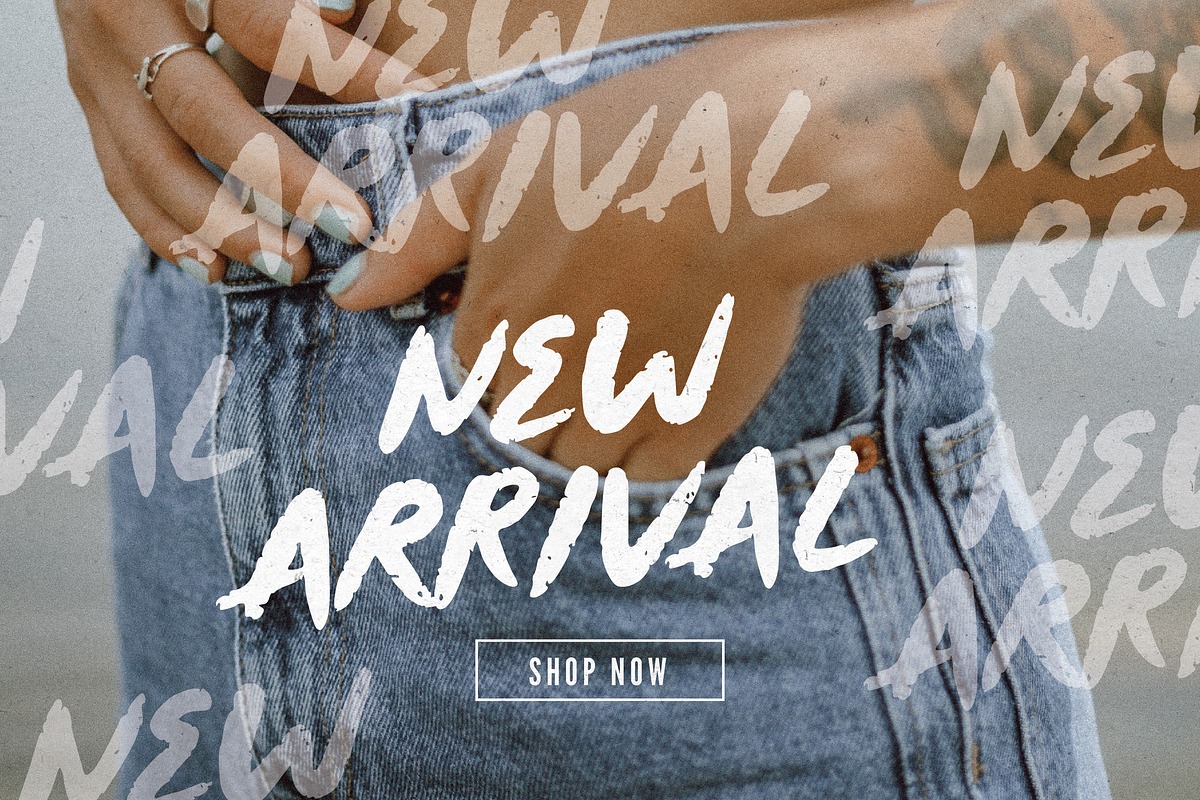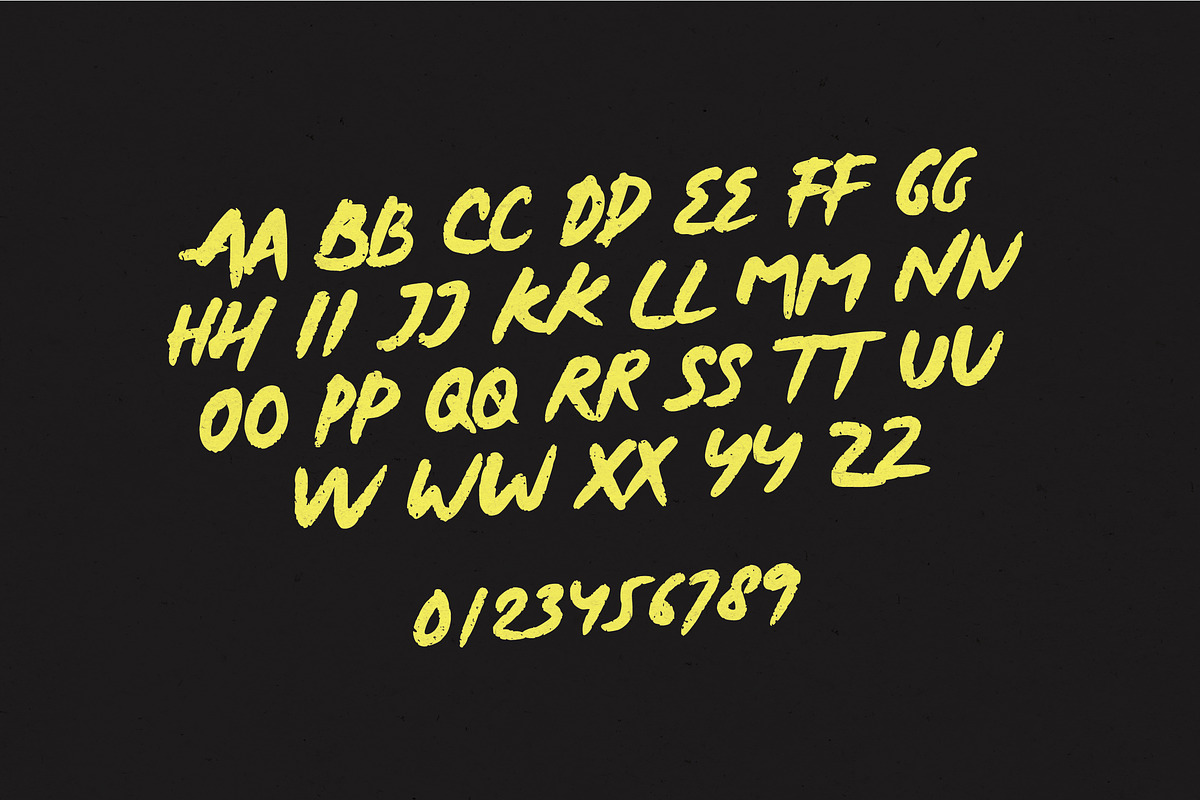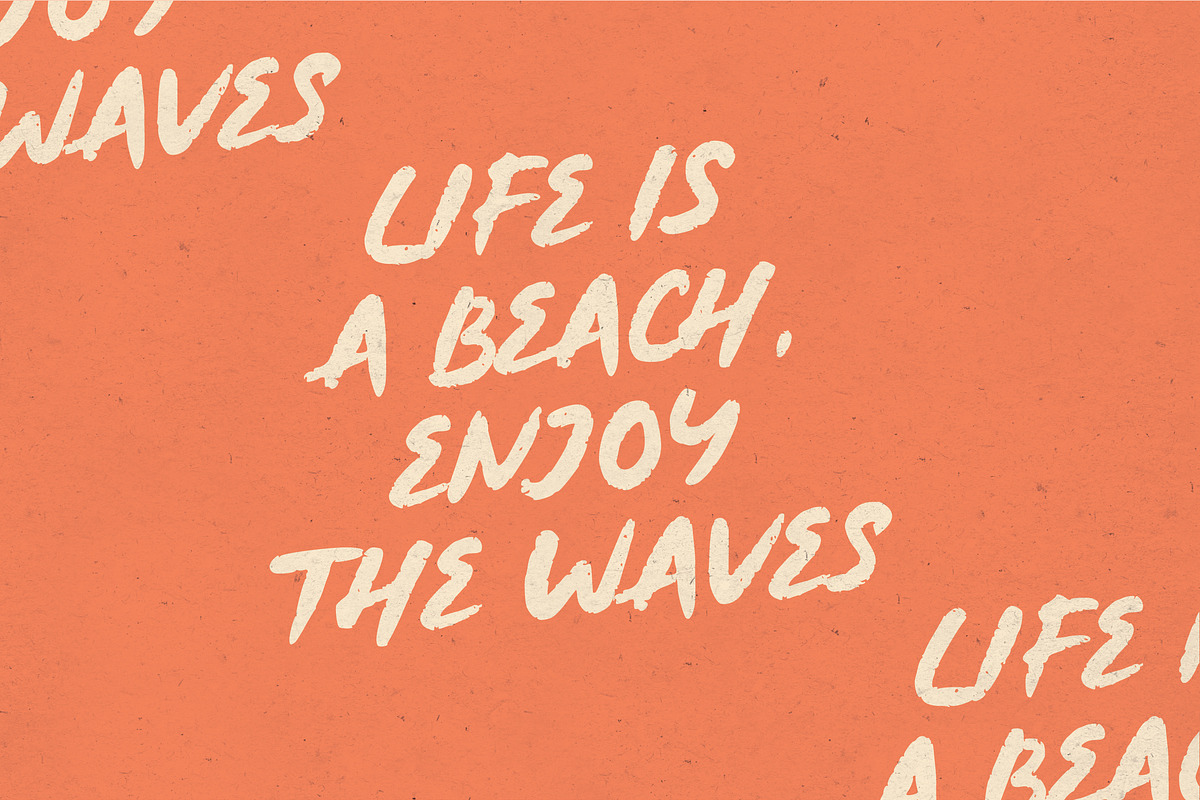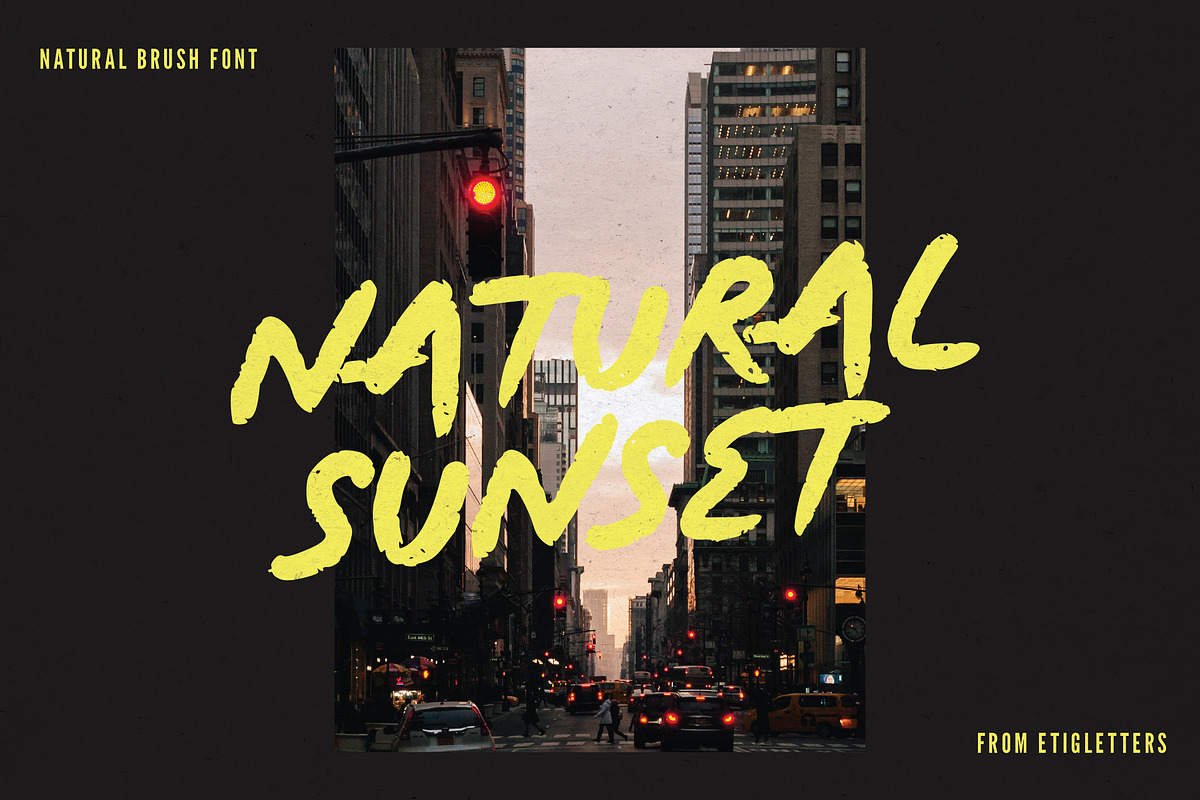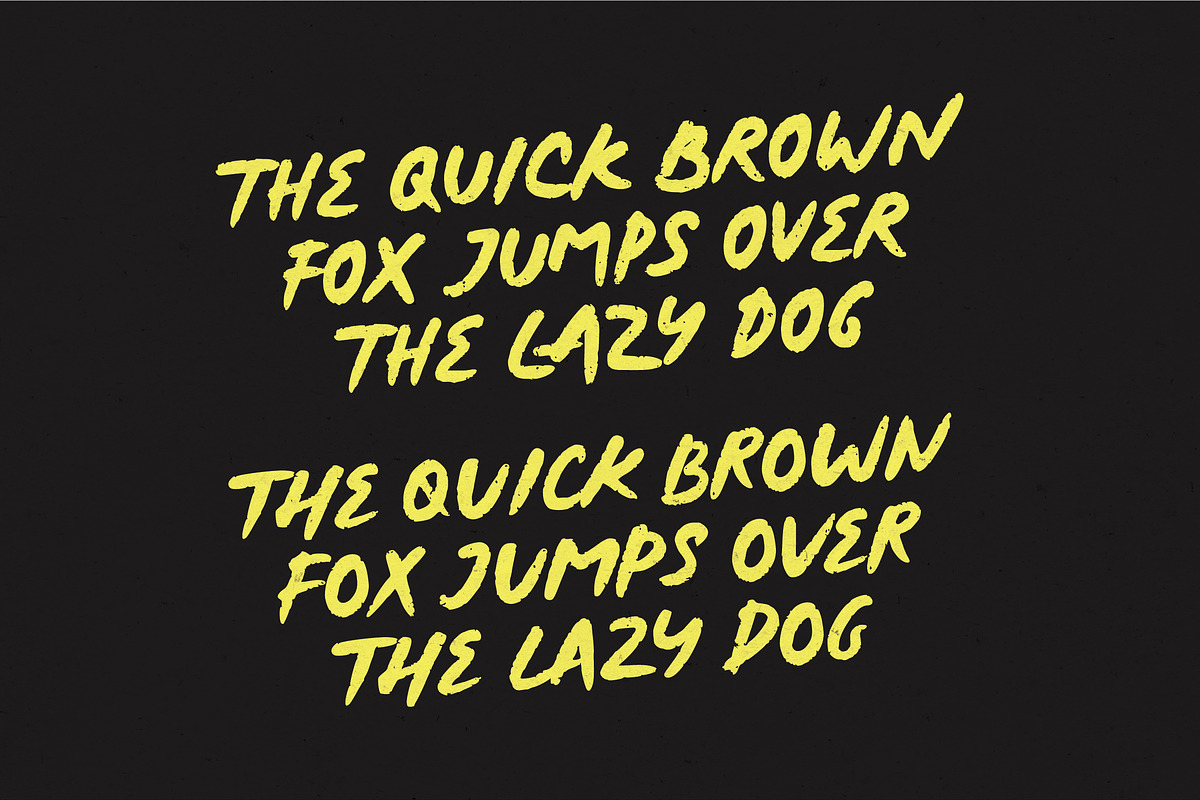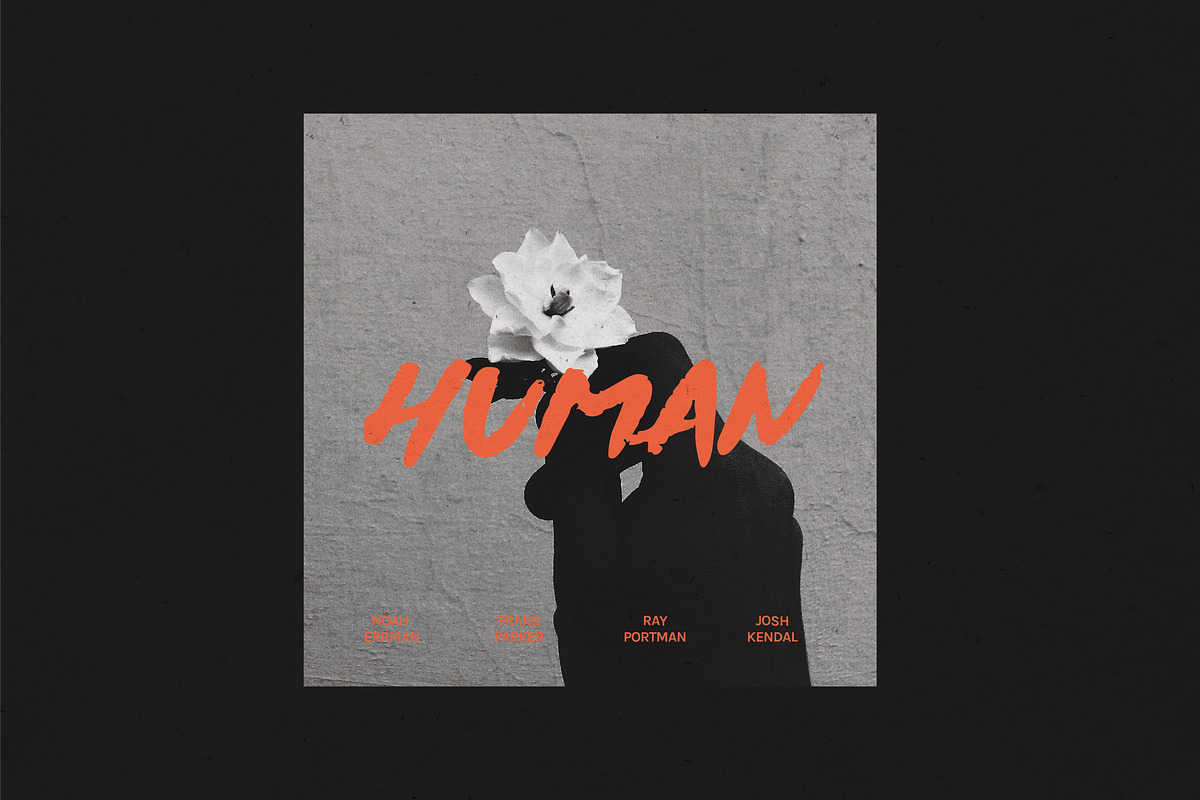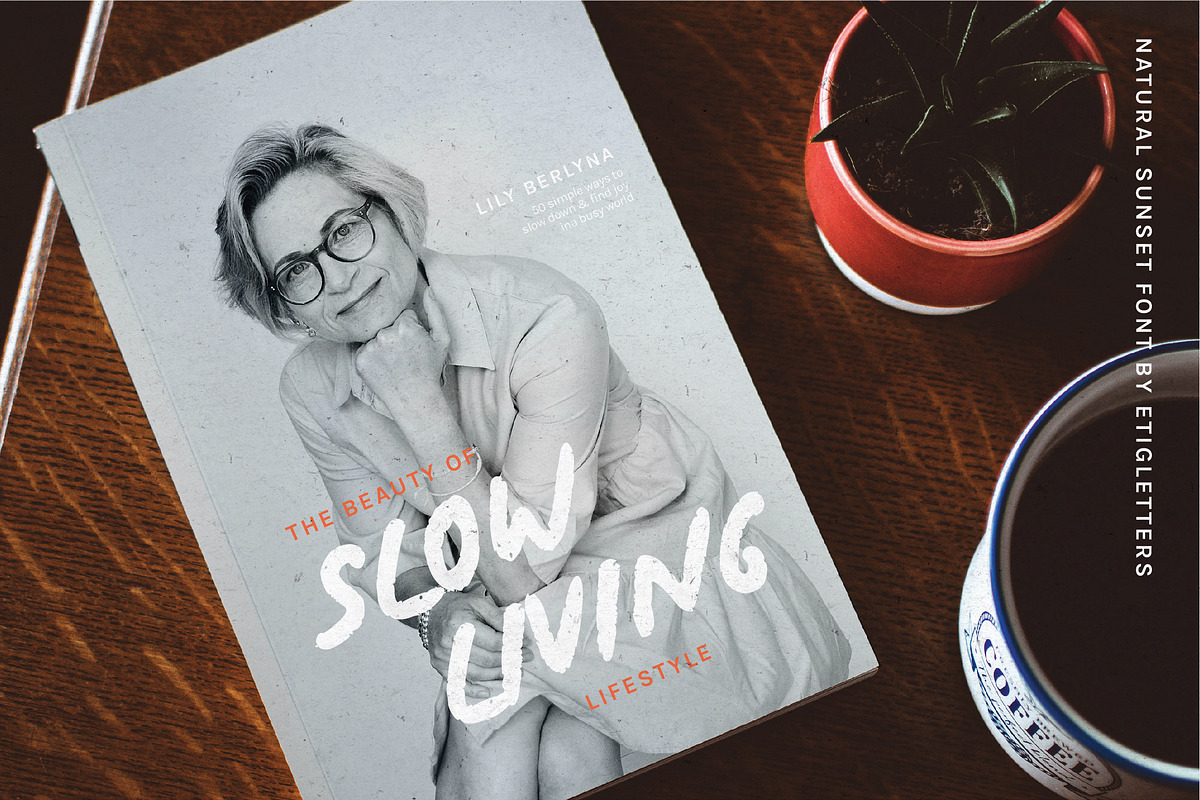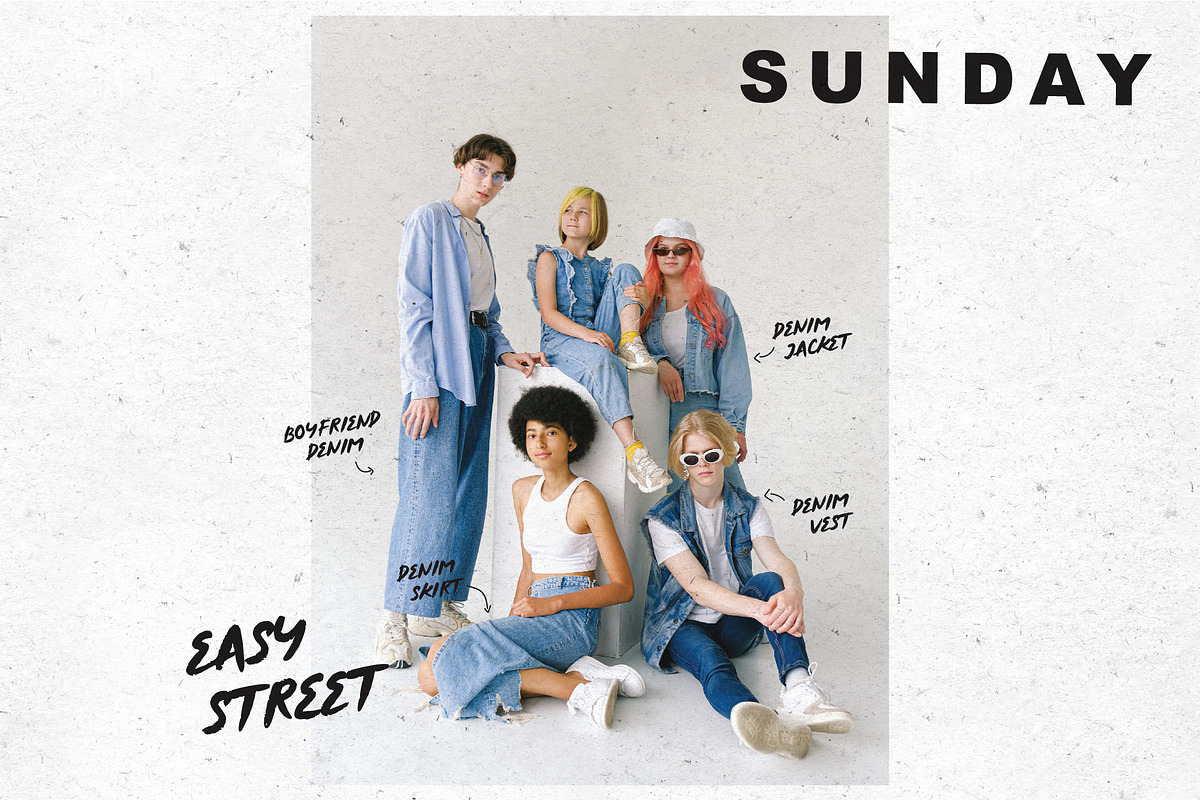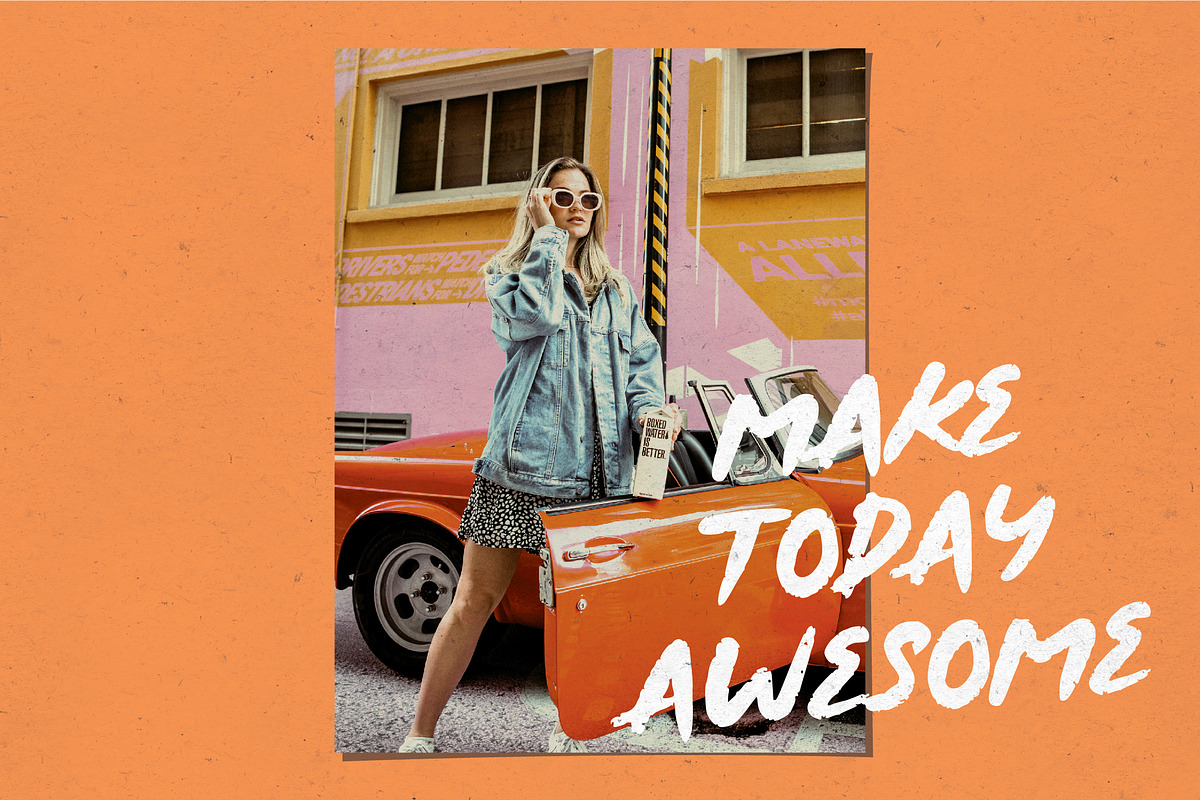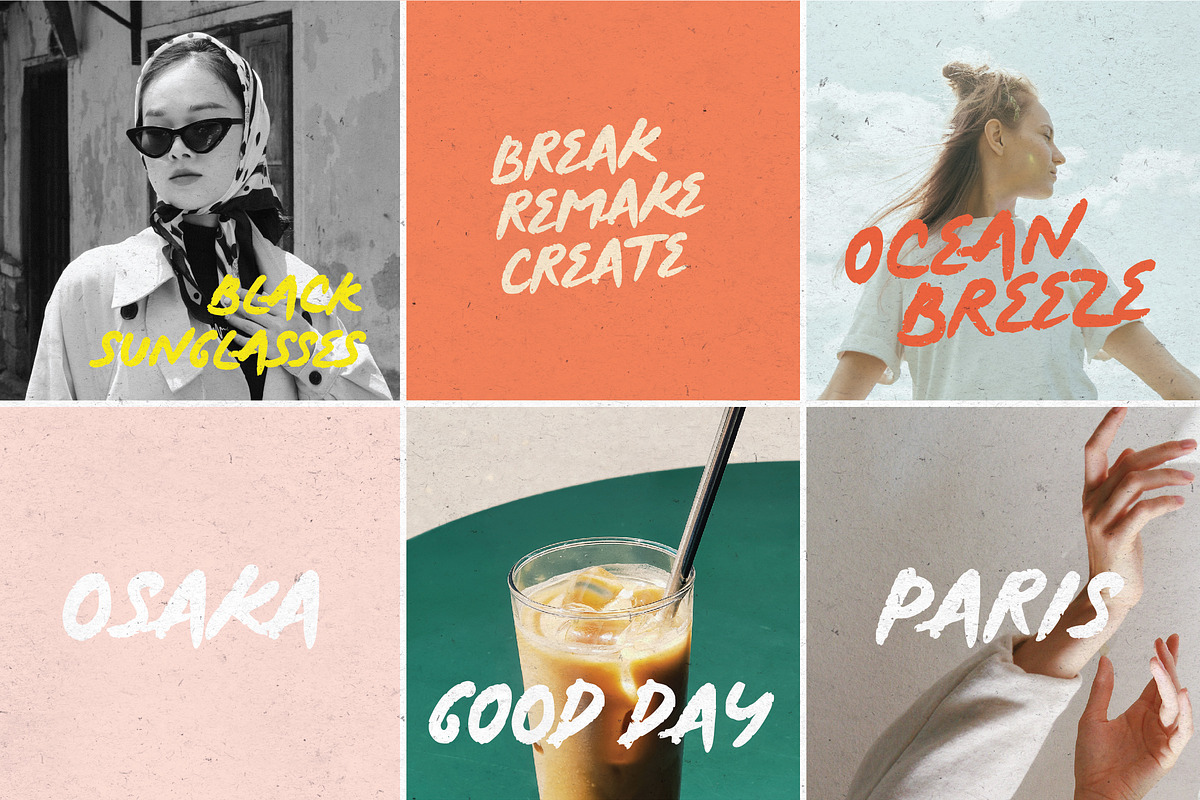
Natural Sunset
Introducing, Natural Sunset - a hand-lettered brush typeface. Natural Sunset will be perfect for logo fonts, poster designs, illustrations, anything that requires a natural look. Also use lower and uppercase for alternative characters.
This font also use lower and uppercase for alternative characters. And already PUA Encoded!